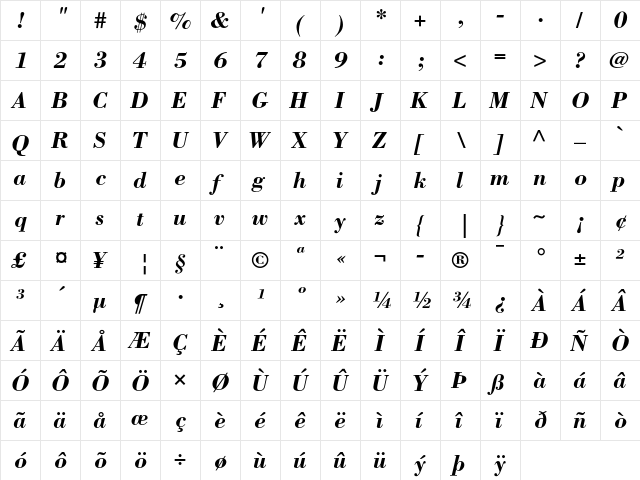
Bodoni Bold Italic
Design Context for Bodoni Typeface
Bodoni is a composed and adaptable typeface that performs quietly and consistently across a wide range of design contexts. Its italic angle brings a sense of urgency and motion to the letterforms. The heavy weight commands attention and anchors typographic hierarchies.
Pro Tip: Use Bodoni for emphasis, pull quotes, and subheadings where its slanted energy can add rhythm to the layout.